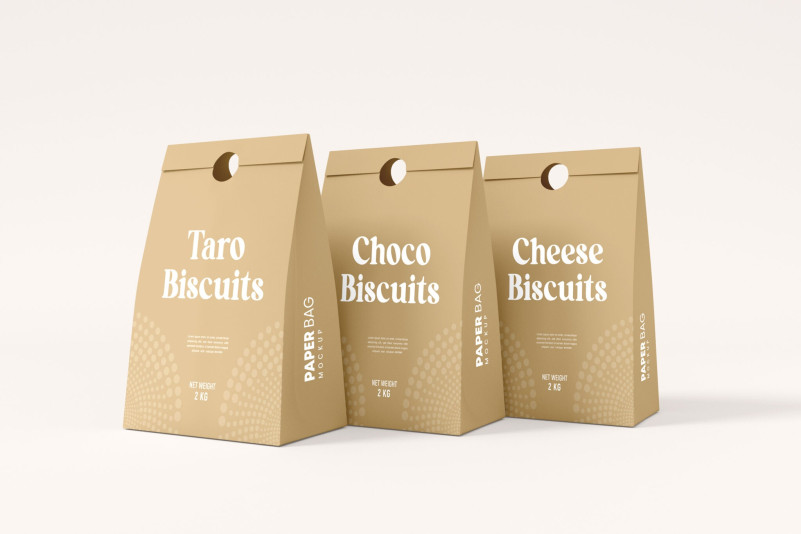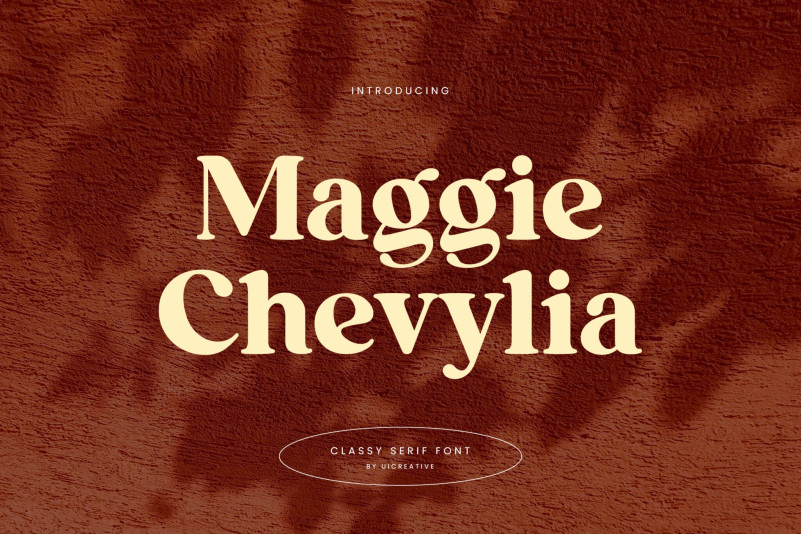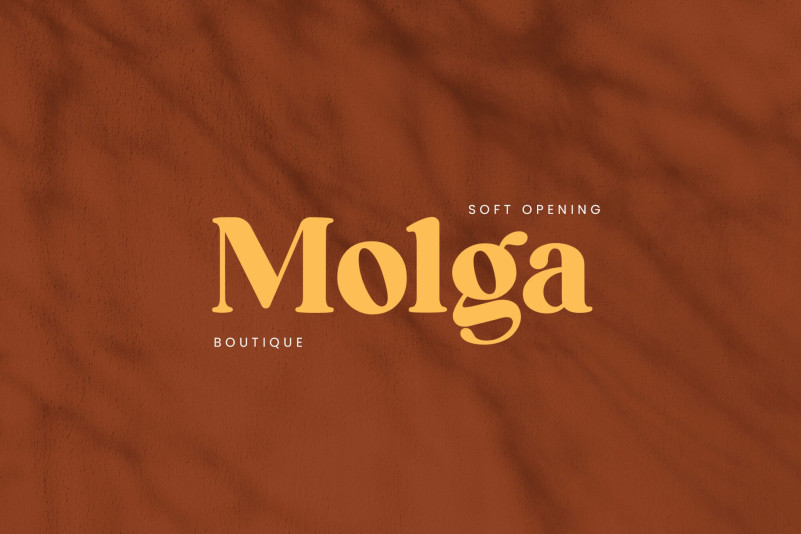
Maggie Chevylia Font
Maggie Chevylia Font, Its optimum legibility, clean, and geometric look is perfect branding, brochures, greeting cards, quotes, posters, stationary, design titles, blog headers, and much more.